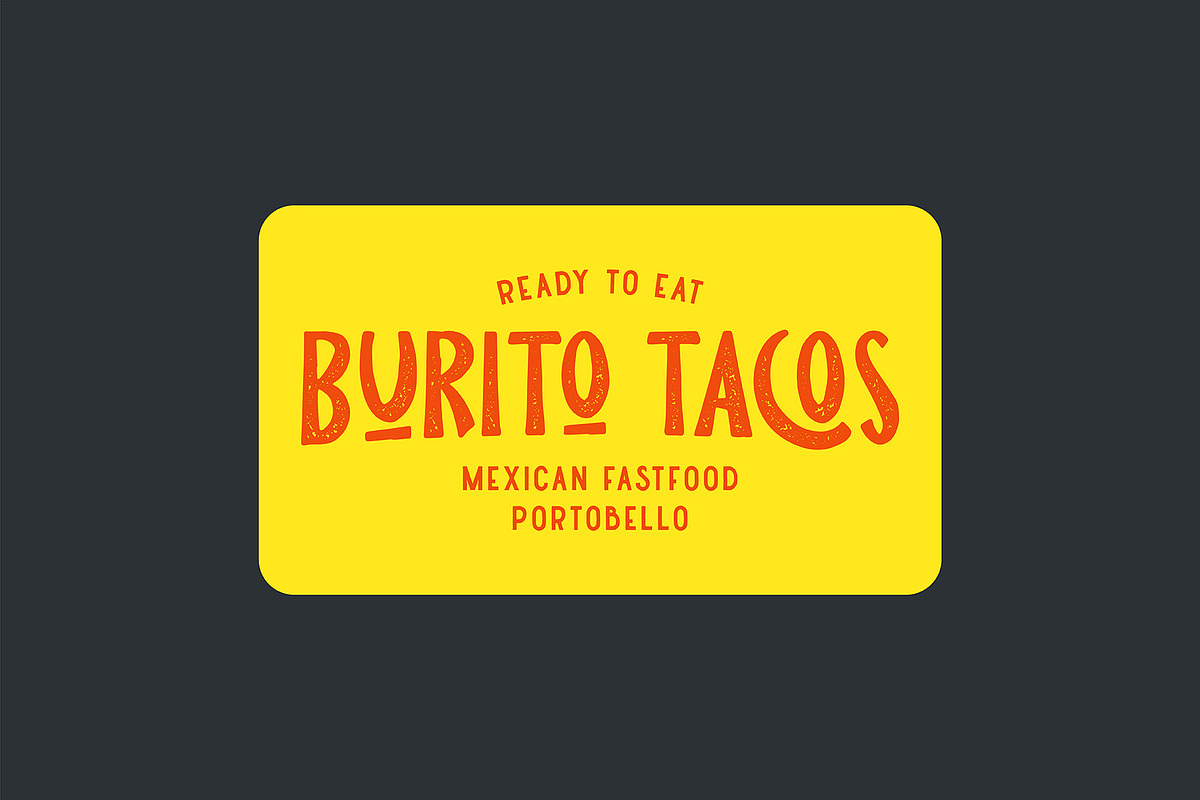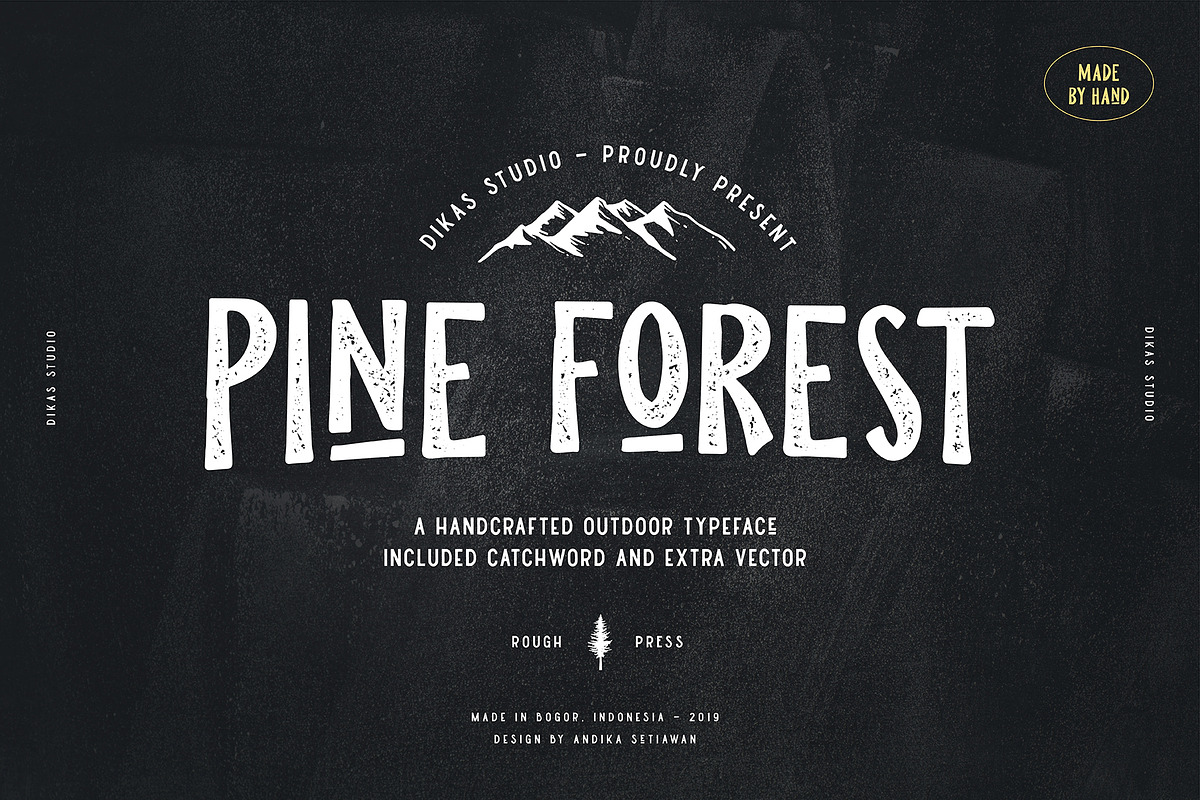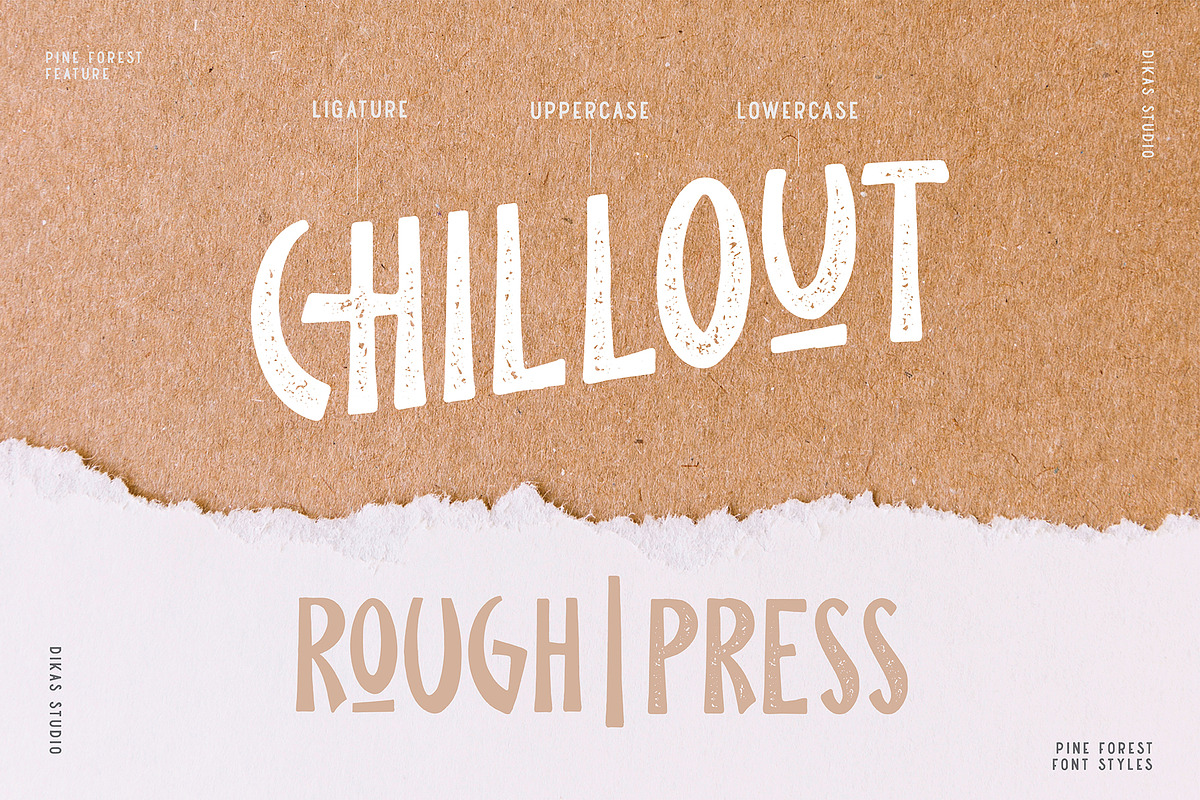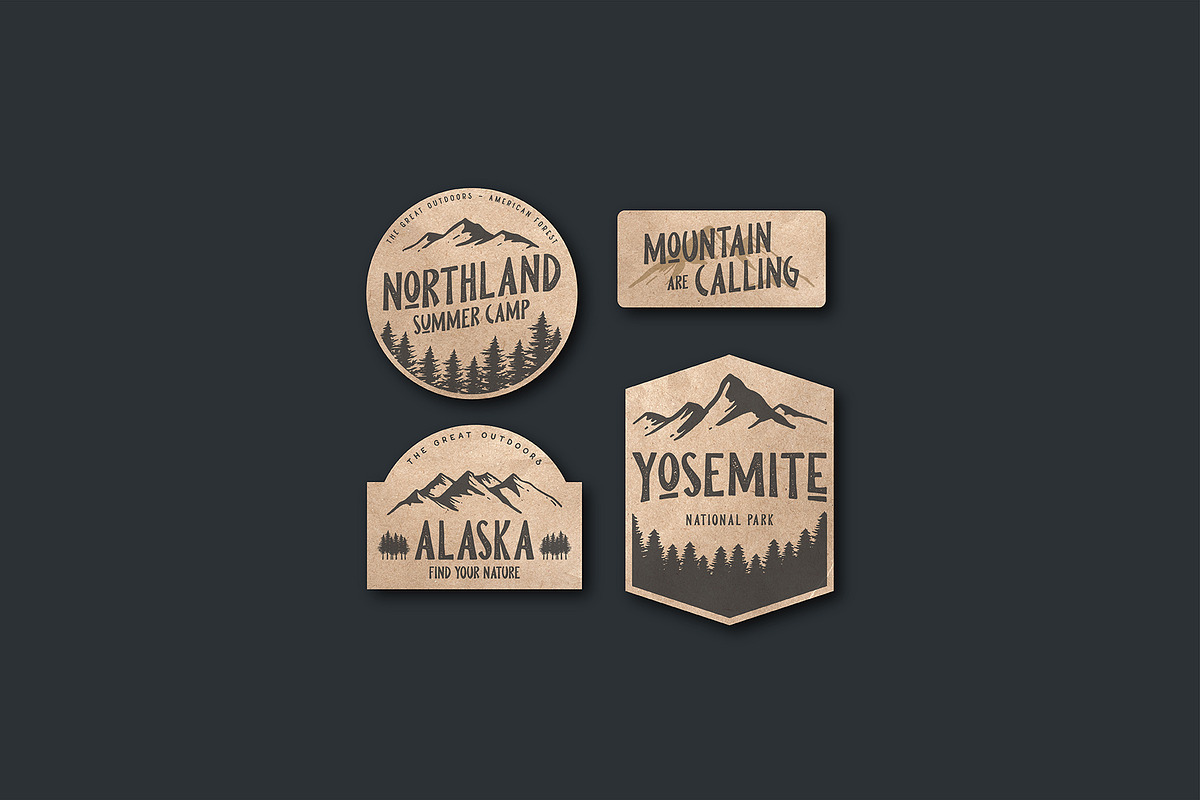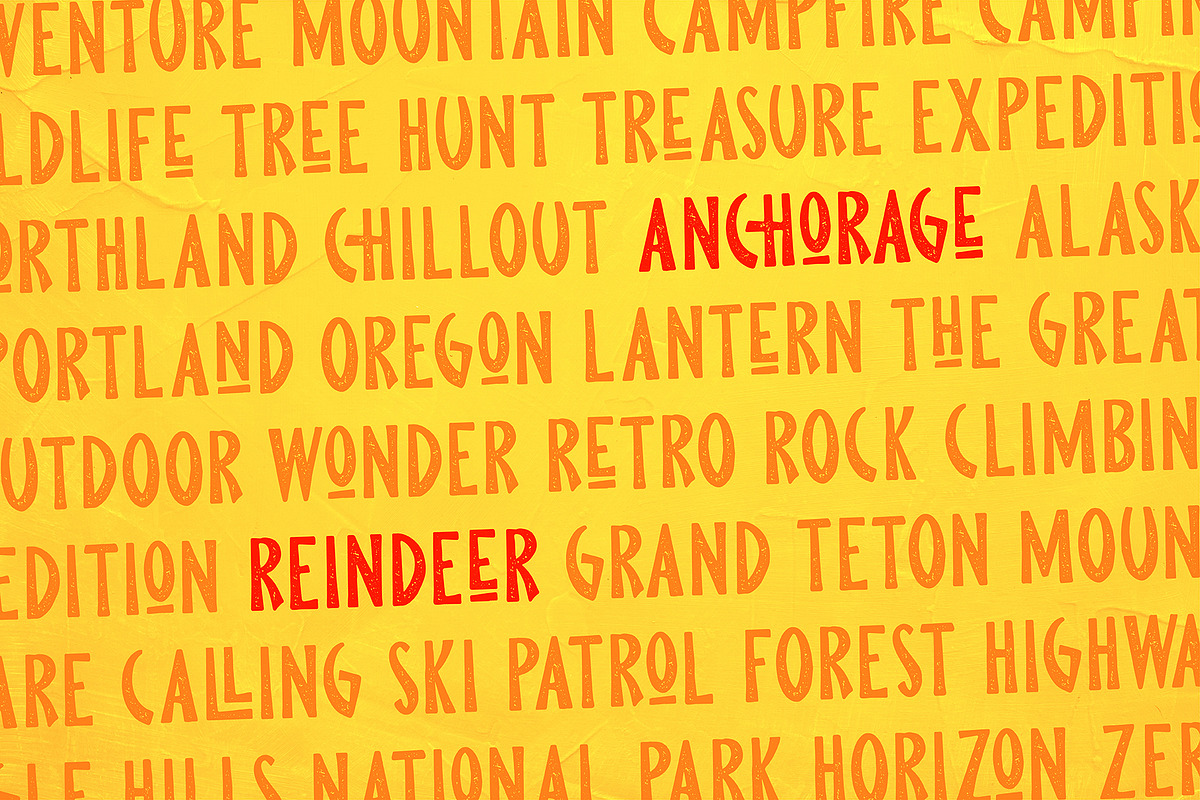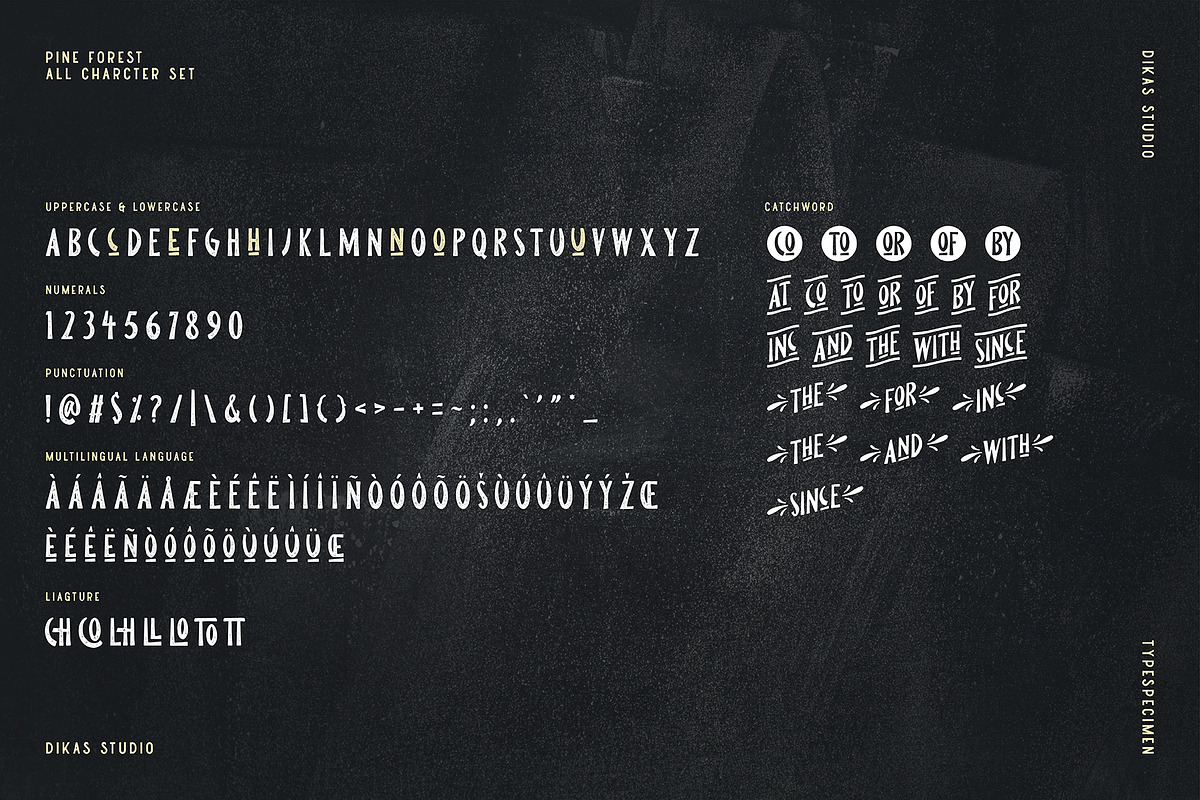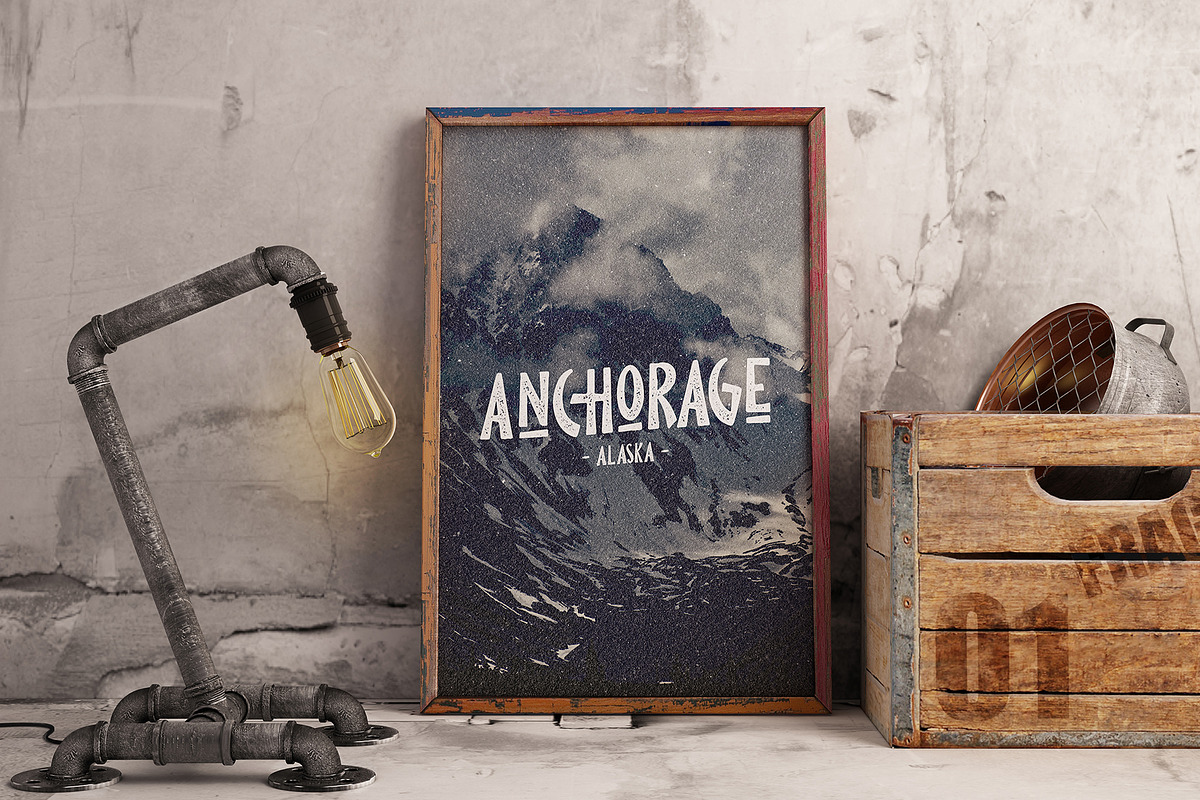
Pine Forest - Outdoor Typeface
Hello friend, let me introduce my product Pine Forest - Outdoor Typeface!
Pine Forest is a display sans serif typeface inspired from outdoor activity, they have a verry handrawn and playfull character. Pine Forest come with two fonts styles rough and press. In this package include catchword and extra vector that can help you to create design. Suitable and applicable to create typography design, branding, logos, product packaging, invitation, qoutes, t-shirt, label badge poster etc.
Punctuation and Number
Multilingual Language
- In this package include catchword and extra vector that can help you to create design.